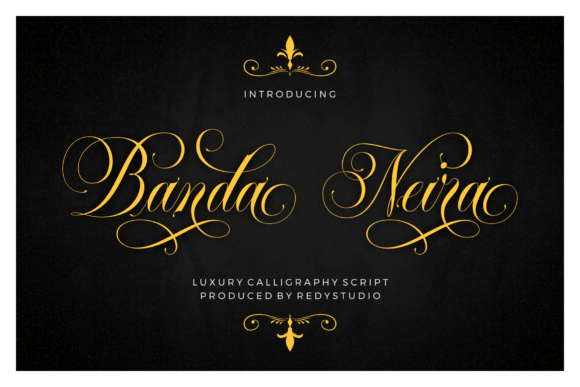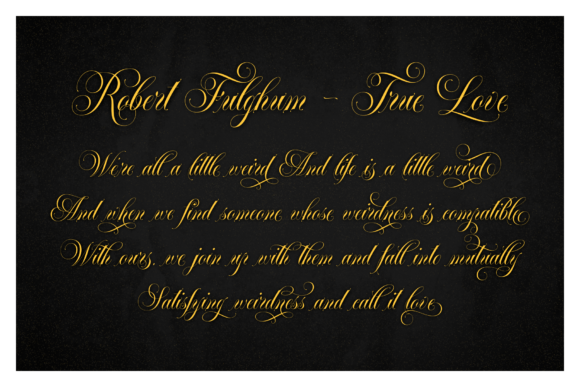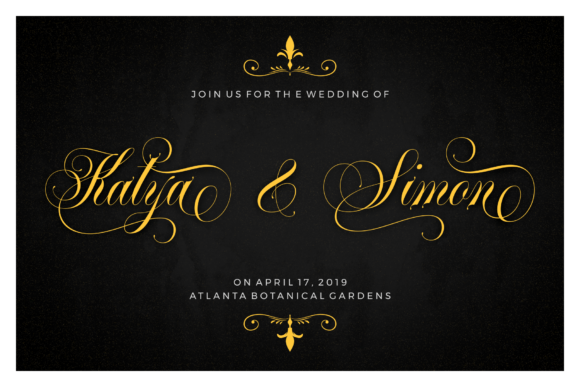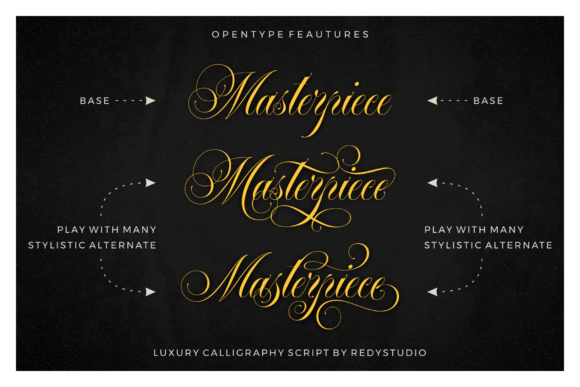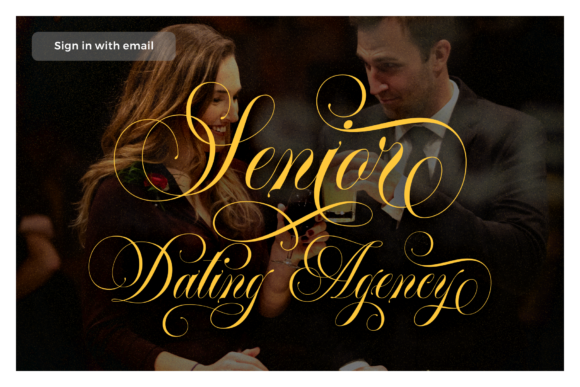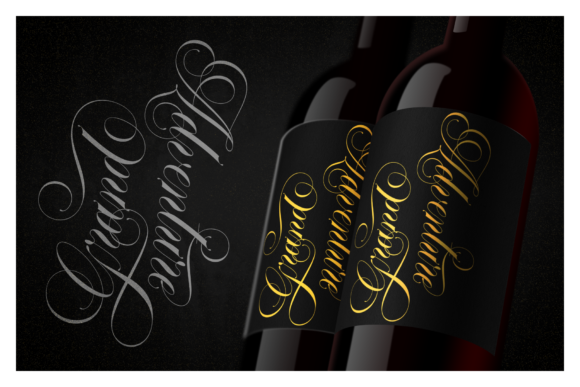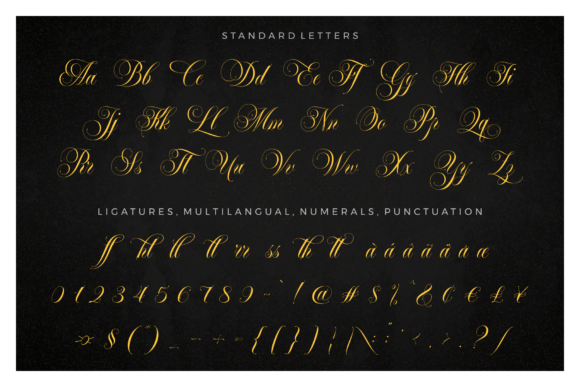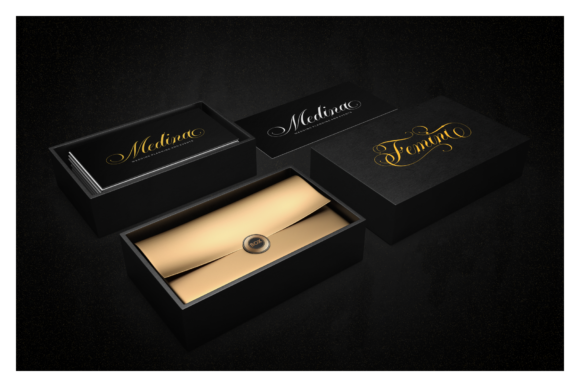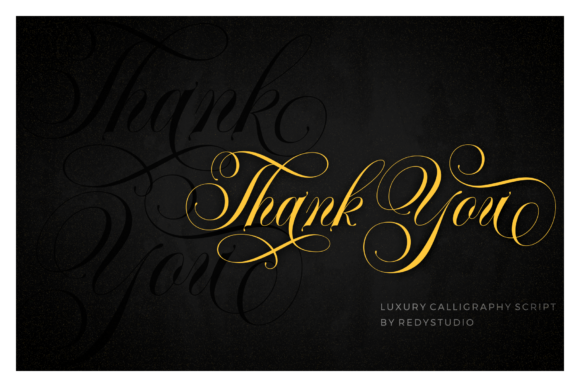
Banda Neira Font
About Banda Neira Font
Banda Neira is a playful, yet elegant handwritten font with a unique charm. Fall in love with its bold swashes and turn any design project into a stand out.